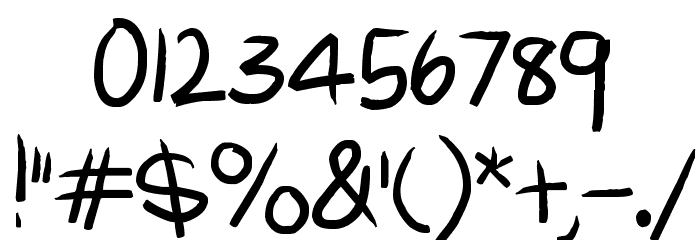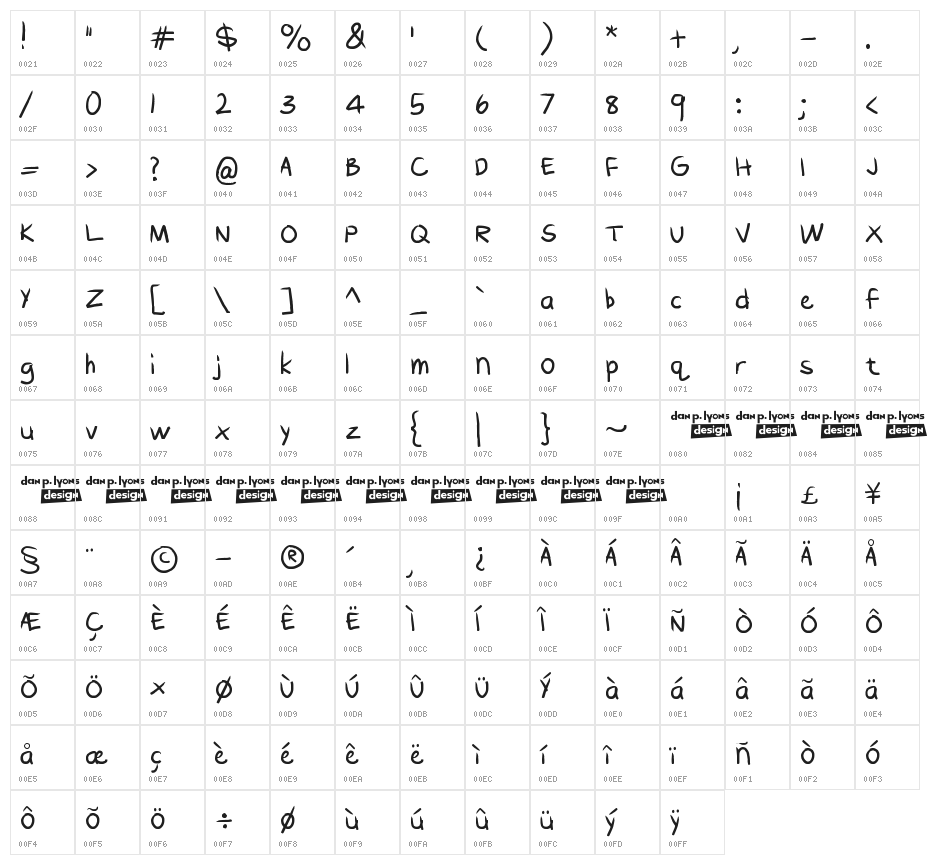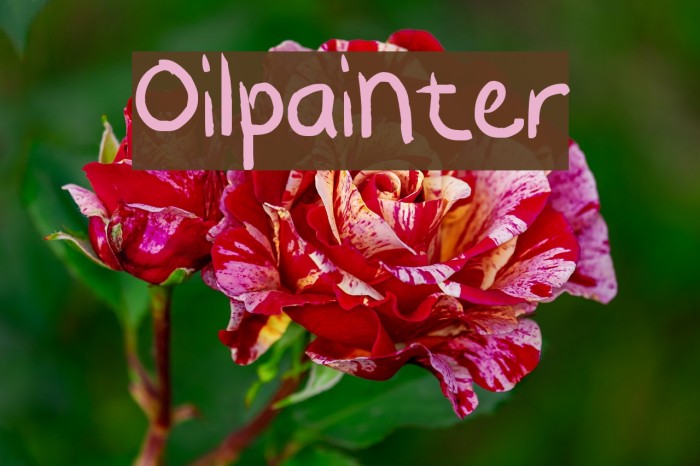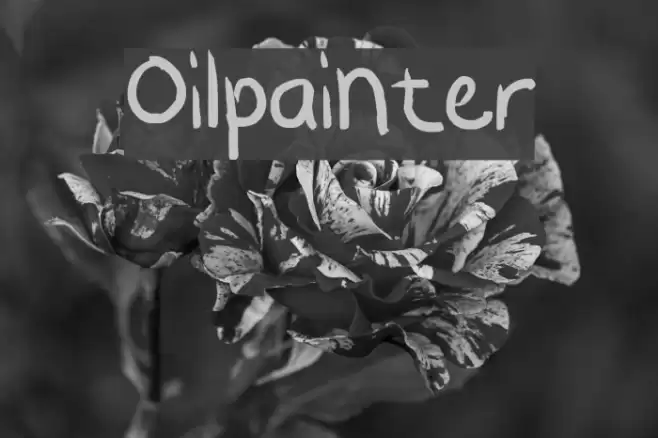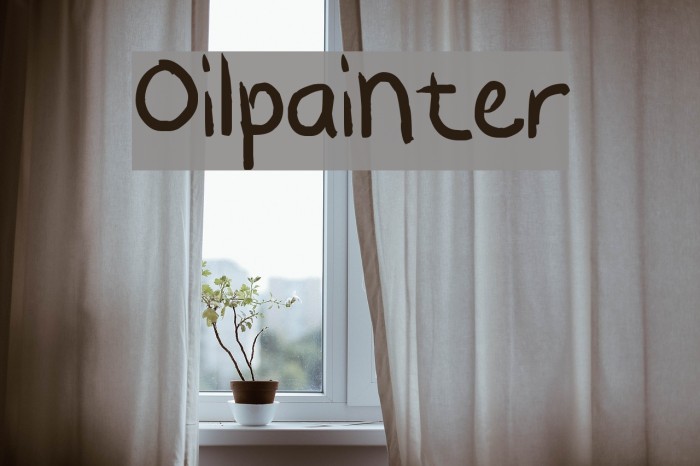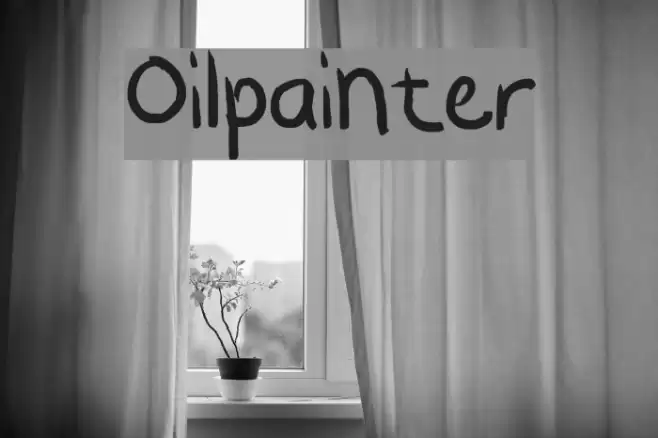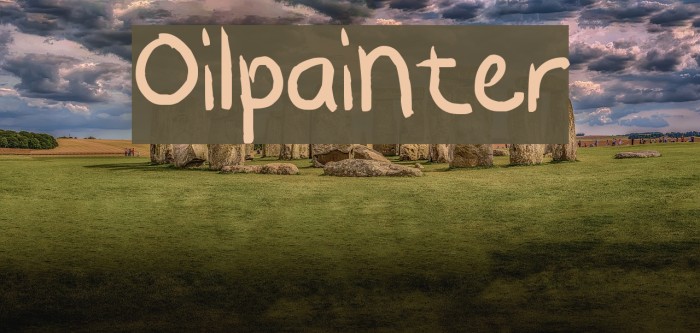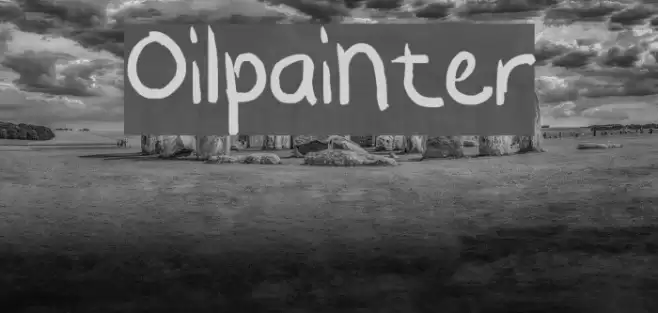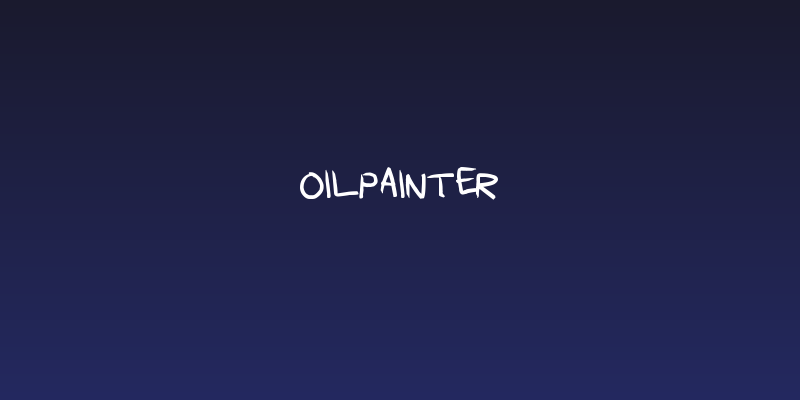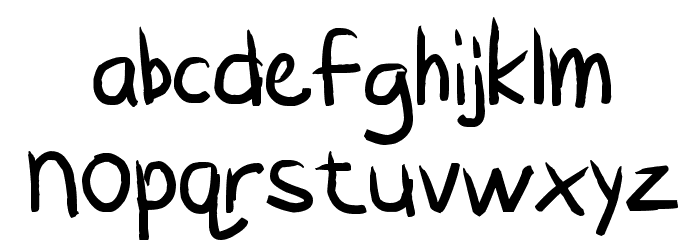
Oilpainter Font
Oilpainter Description
This font features a playful and artistic style, reminiscent of brush strokes or hand-drawn letters. The uppercase and lowercase letters exhibit a casual, yet deliberate design, with varying stroke thickness that adds a dynamic feel. The numbers and special characters maintain this artistic flair, making the font suitable for creative and informal applications. The overall appearance is lively and expressive, capturing the essence of hand-painted text.
| Proposed Projects | Ideal for art-related projects, children's books, creative posters, and informal branding. |